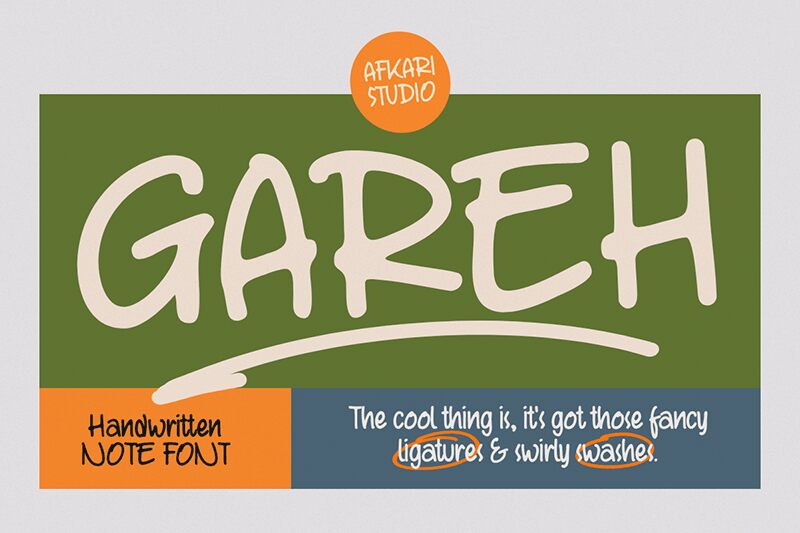
Gareh Regular
Gareh, meticulously crafted by Musthafa Kamal Emje of Afkari Studio, is a handwritten font that exudes personality and charm. The Gareh font marries casual flair with a touch of sophistication, making it aesthetically appealing for a range of creative endeavors.
The nuances in its varying line weights and playful curves suggest a versatility that is rare among handwritten fonts. This quality makes Gareh an excellent choice for branding projects, invitations, and any design work where a personal touch is desired without sacrificing elegance.
The handwritten style of Gareh lends an authentic human element to digital designs, bridging the gap between traditional handcrafted artistry and modern digital expression. Whether used for headers or body text, this font provides readability while maintaining its stylistic appeal.
Gareh's potential applications are vast-its engaging appearance could enhance book covers, greeting cards, or even give an artisanal feel to digital interfaces. The blend of casual grace makes it equally suitable for print and digital mediums where personality is paramount.
The nuances in its varying line weights and playful curves suggest a versatility that is rare among handwritten fonts. This quality makes Gareh an excellent choice for branding projects, invitations, and any design work where a personal touch is desired without sacrificing elegance.
The handwritten style of Gareh lends an authentic human element to digital designs, bridging the gap between traditional handcrafted artistry and modern digital expression. Whether used for headers or body text, this font provides readability while maintaining its stylistic appeal.
Gareh's potential applications are vast-its engaging appearance could enhance book covers, greeting cards, or even give an artisanal feel to digital interfaces. The blend of casual grace makes it equally suitable for print and digital mediums where personality is paramount.